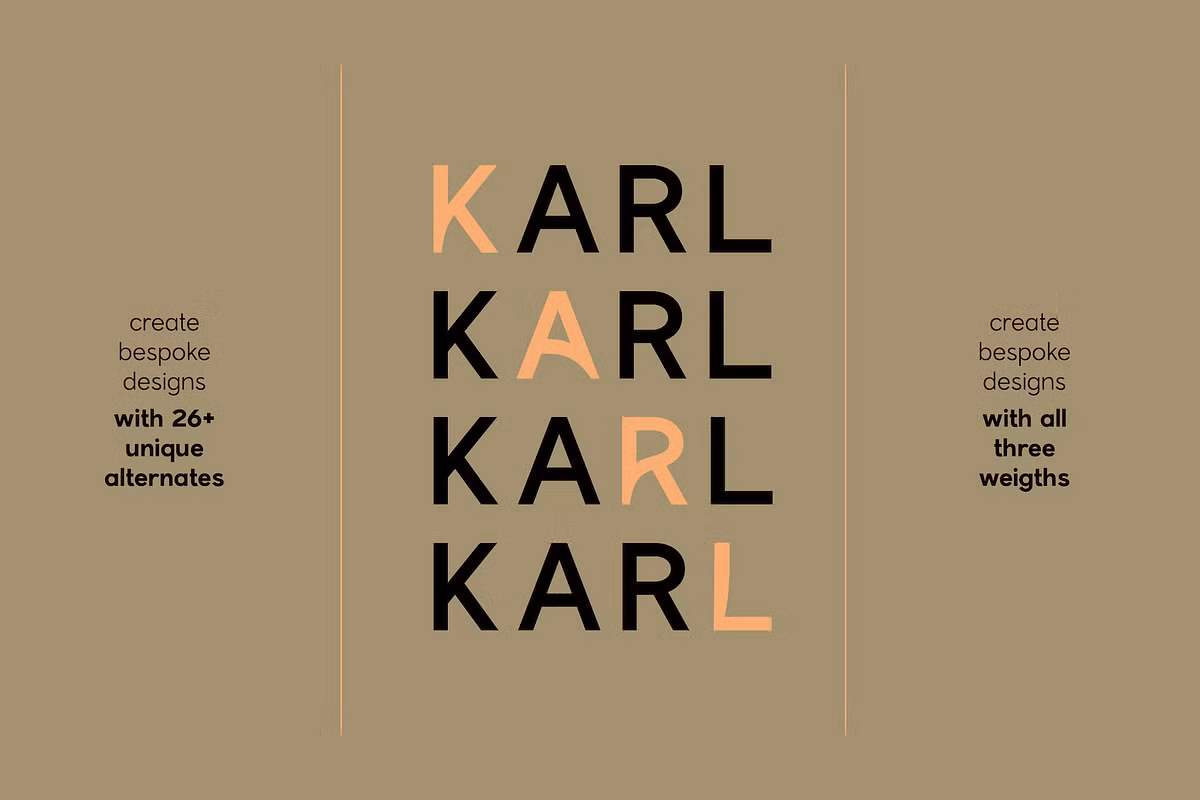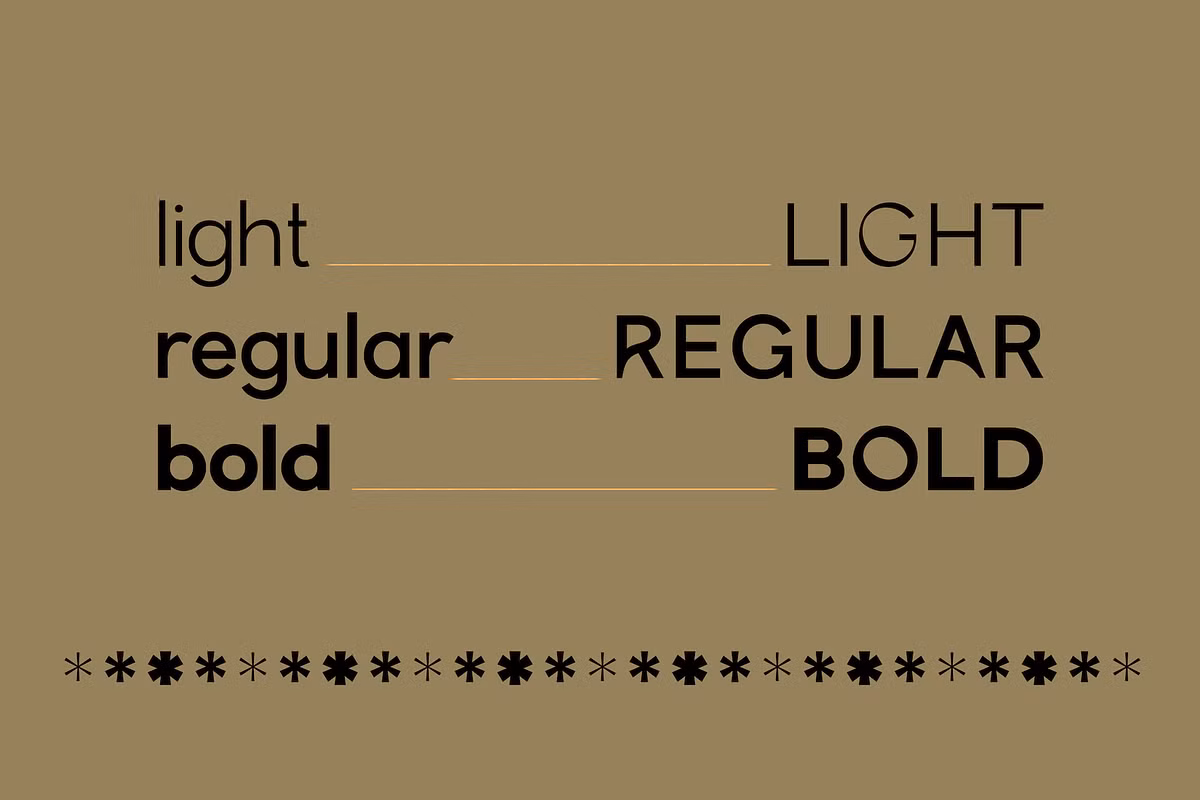
Karl: Bespoke Minimalist Sans Serif Typeface with Unique Alternates
Introduction to Karl Typeface
Karl is a one-of-a-kind sans serif font with a minimalist style that really makes it stand out. It comes in three different weights, which makes it perfect for people who want to create unique and visually appealing designs. Karl isn’t just any ordinary font – it’s been carefully designed to bring a sense of sophistication and professionalism to any project. One of the things that sets Karl apart is its 26 stylistic alternates, which allow you to add your own personal touch to every design. This makes it a great choice for graphic designers, marketers, and anyone who wants to express their creativity.
With Karl, you can create designs that are truly distinctive and effective. Whether you’re working on a branding project or just want to add some flair to your website, Karl is a great option. Its clean lines and simple style make it easy to read and understand, while its unique touches give it a lot of character. Overall, Karl is a versatile and refined font that can help you take your designs to the next level.
Design Style of Karl Typeface
Karl’s design is all about keeping things simple and modern. It uses clean lines and a minimalistic approach to create a sense of clarity and make it easy to read. The main characters are straightforward, but then there are 26 special alternates that add a touch of personality to the design. These alternates are carefully thought out to look a bit irregular, which creates a nice contrast with the more structured main characters.
This mix of simplicity and character is what makes Karl so unique and versatile – it can be used in many different design projects. The simplicity helps to get the message across, while the alternates add a bit of flair and make the design more interesting. Overall, Karl’s design is a great balance of form and function, making it a great choice for designers who want to create something modern and eye-catching.
Font Weights
Karl is a pretty versatile font – it comes in three different weights: Light, Regular, and Bold. This means you can pick the right weight for the job, whether you’re working on headings, body text, or buttons that need to stand out. The Light weight is great for designs that need a bit of subtlety and elegance, while the Bold weight is perfect for grabbing attention and making important info really pop. With these three weights, Karl can fit in with just about any design project you’re working on.
Character Set and Stylistic Alternates
Karl has a lot to offer, especially when it comes to its character set. You get a wide range of uppercase and lowercase letters, numbers, and punctuation marks, as well as some basic symbols. This means you have all the tools you need to create designs that look professional and polished. But that’s not all – Karl also includes over 26 stylistic alternates that you can access through the Glyphs Panel.
This gives you even more flexibility and creative control when it comes to your typography, allowing you to add your own unique touch to your designs. With all these options at your fingertips, you can experiment with different looks and feels until you find the one that’s just right for your project.
Non-English Support
Karl is also great for designers who need to work with languages other than English. It helps them create beautiful text in many languages, so their designs look good no matter what language they’re using. This is really useful for projects that need to be in multiple languages, because it keeps the text looking nice and consistent.
Use Cases for the Karl Typeface
Karl is really versatile and can be used in lots of different design situations. Here are some great ways to use him:
- Branding: Whether you are designing a logo or brand collateral, Karl’s modern and clean aesthetic makes it an excellent choice for creating a strong brand identity.
- Web Design: The readability and simplicity of Karl make it suitable for web applications, where clear communication is key. Use it for headers, body text, or navigation elements to enhance user experience.
- Print Media: From business cards to brochures, Karl’s refined look adds a touch of professionalism that is perfect for print materials.
- Social Media Graphics: The bold weight of Karl is ideal for eye-catching social media posts, helping to convey messages effectively in a visually appealing manner.
Pairing Suggestions for Karl Typeface
While Karl is a complete typeface on its own, pairing it with complementary fonts can enhance your designs even further. Here are some pairing suggestions:
- Serif Fonts: Pairing Karl with a serif typeface like Merriweather or Playfair Display can create a striking contrast that adds depth to your designs.
- Display Fonts: For headings, consider using a bold display font like Bebas Neue alongside Karl for body text. This combination allows for dynamic visual hierarchy.
- Script Fonts: To introduce a personal touch, pair Karl with a modern script font such as Pacifico for invitations or promotional materials, creating a balanced and inviting look.
So why not give Karl a try in your next project and see your creativity shine? It’s a great way to take your designs to the next level and make them truly stand out. Whether you’re looking to create a bold statement or a subtle impression, Karl has everything you need to make it happen.